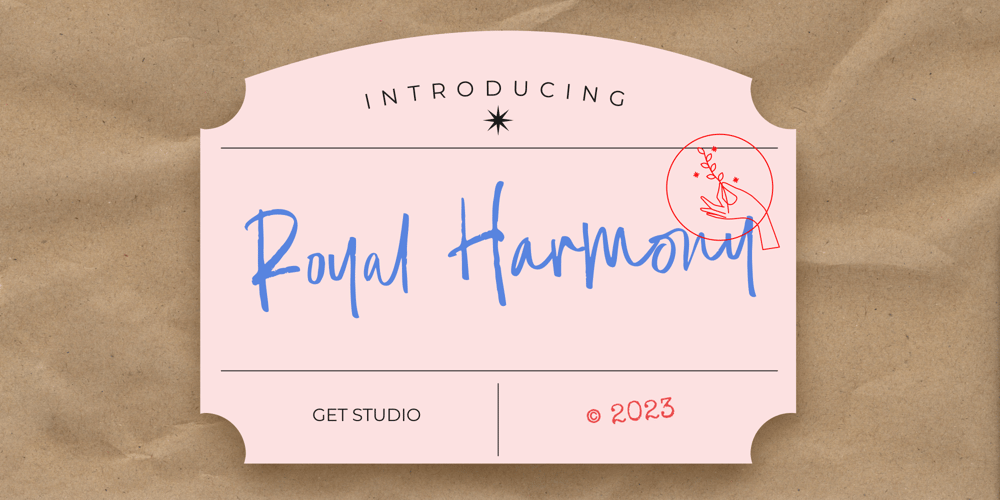
Royal Harmony Font Family was designed by Hermansyah and published by Get Studio. Royal Harmony contains 1 styles and family package options. Royal Harmony is a chic Handwritten font that simply and elegantly on any design you make, is a must-have to add to your chic modern script collection.Best choice for logos, album covers, quotes, greeting cards, book covers, wedding designs, social media posts, and much more.